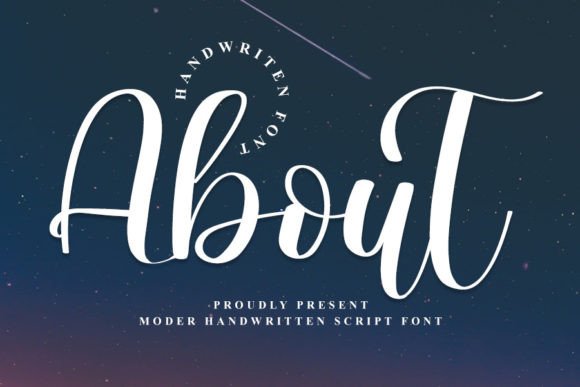
About About Font
About is a casual and flowing handwritten font that brings a modern and welcoming feel to any design. With its smooth curves and natural strokes, this font captures the beauty of authentic handwriting. Whether you are designing for personal or professional use, About will help you create designs that feel both elegant and approachable.
A Modern Handwritten Style
The About font stands out with its relaxed and organic letterforms. Every character connects naturally, creating a sense of harmony and movement. This makes it perfect for designs that need a personal touch. Whether you are working on wedding invitations, brand logos, or greeting cards, About will make your text look graceful and stylish.
This font is highly versatile and can be used across a variety of projects, including:
Wedding Invitations: Add romance and sophistication to your event stationery.
Social Media Graphics: Make your posts pop with a unique and friendly style.
Greeting Cards: Create heartfelt cards for any occasion.
Wall Art and Prints: Design inspiring quotes and decorative pieces.
Branding: Use it in logos, labels, and packaging to convey authenticity.
Personal Projects: From journals to scrapbooks, About makes every detail special.
Easy to Use and Fully Accessible
Design Tips for Maximum Impact
To get the most out of About, consider these simple tips:
Combine with Serif Fonts: Pair it with classic serif fonts for an eye-catching contrast.
Keep It Simple: Use plenty of white space to let the font breathe.
Play with Scale: Mix large headlines with smaller body text for dynamic layouts.
Choose Soft Colors: Gentle hues can enhance the font’s warm, inviting style.
Experiment with Alignment: Try centering your text or aligning it to the right for a modern look.
Why Designers Love About Font
About is beloved for its versatility and charm. It has a laid-back vibe that feels personal but still looks polished. Whether your project is playful, romantic, or professional, this font adapts to your creative vision with ease.
From elegant wedding invitations to cheerful social posts, About helps you communicate your ideas beautifully and effectively.
Make Every Design Unforgettable
When you need a font that feels fresh, stylish, and genuine, About is the perfect choice. Its flowing letters and friendly character make every design feel special. Let About inspire you to create art that connects with your audience and leaves a lasting impression.